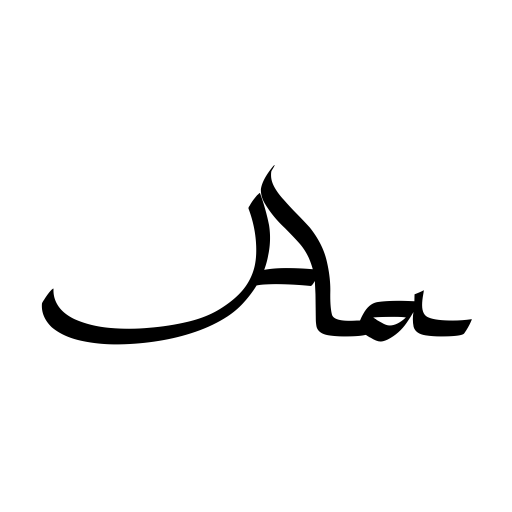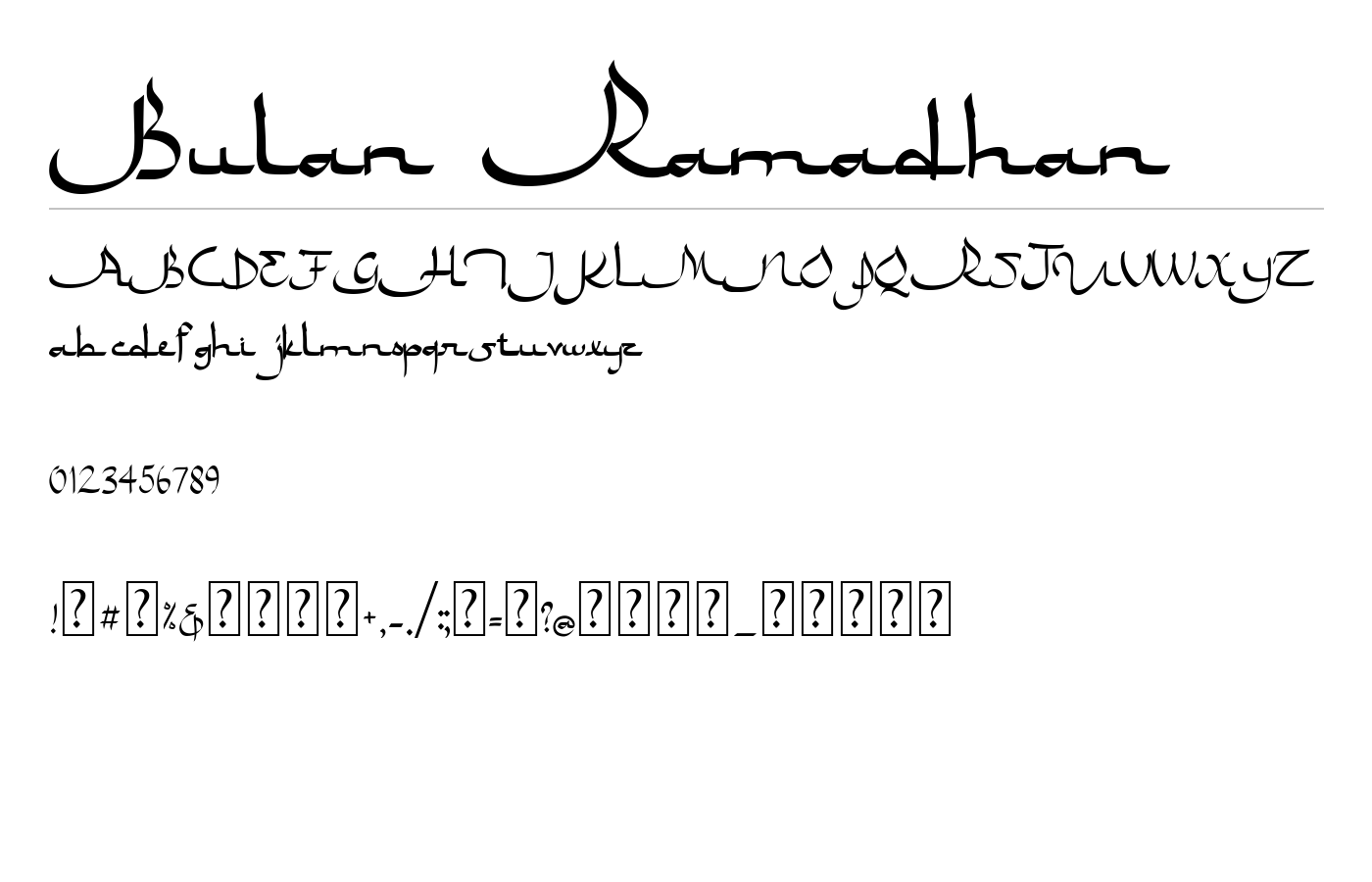
Bulan Ramadhan is a unique script font that blends delicate, flowing strokes with a whimsical, hand-drawn feel. Its slender letterforms and organic curves give it an artistic, elegant personality, perfect for adding a personal, creative touch to invitations, branding, or cultural designs. This font works best in decorative uses where a distinctive, graceful style is desired rather than large blocks of text.
Bulan Ramadhan Font
About Bulan Ramadhan Font
| Font family | Bulan Ramadhan Font |
| Designer | Faturrohim |